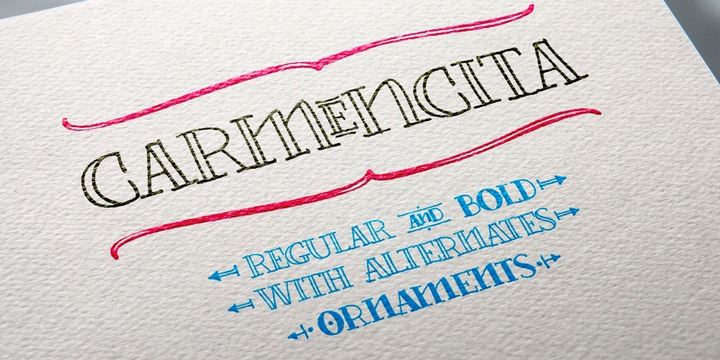
Carmencita
by TipoType
Carmencita is a typeface specially designed to give graphic products that hand-made feeling, slightly rustic with a handcrafted touch. It was created with a focus on signage, products and graphics that need to convey closeness, warmth and quality.
It includes a set of ornaments that reinforces that gestural mark, and helps to customize logos, banners, posters and other design pieces.
Its two versions, bold & regular (in addition to the alternate characters), can be combined to increase even more the amount of resources and possibilities of Carmencita.